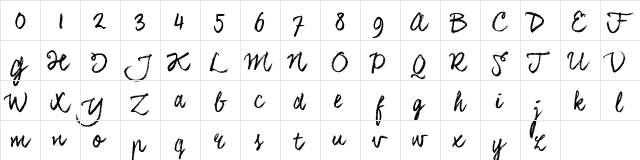
CoalhandLukeTRIAL Font Preview
CoalhandLukeTRIAL CoalhandLukeTRIAL
CoalhandLukeTRIAL Font Details
| Style | CoalhandLukeTRIAL |
| Foundry | JJW van der Ham / JOEBOB graphics |
| Designer | JJW van der Ham |
Design Context for CoalhandLukeTRIAL Typeface
CoalhandLukeTRIAL flows with the natural rhythm of handwritten lettering, making it ideal for designs that call for warmth and personal expression.